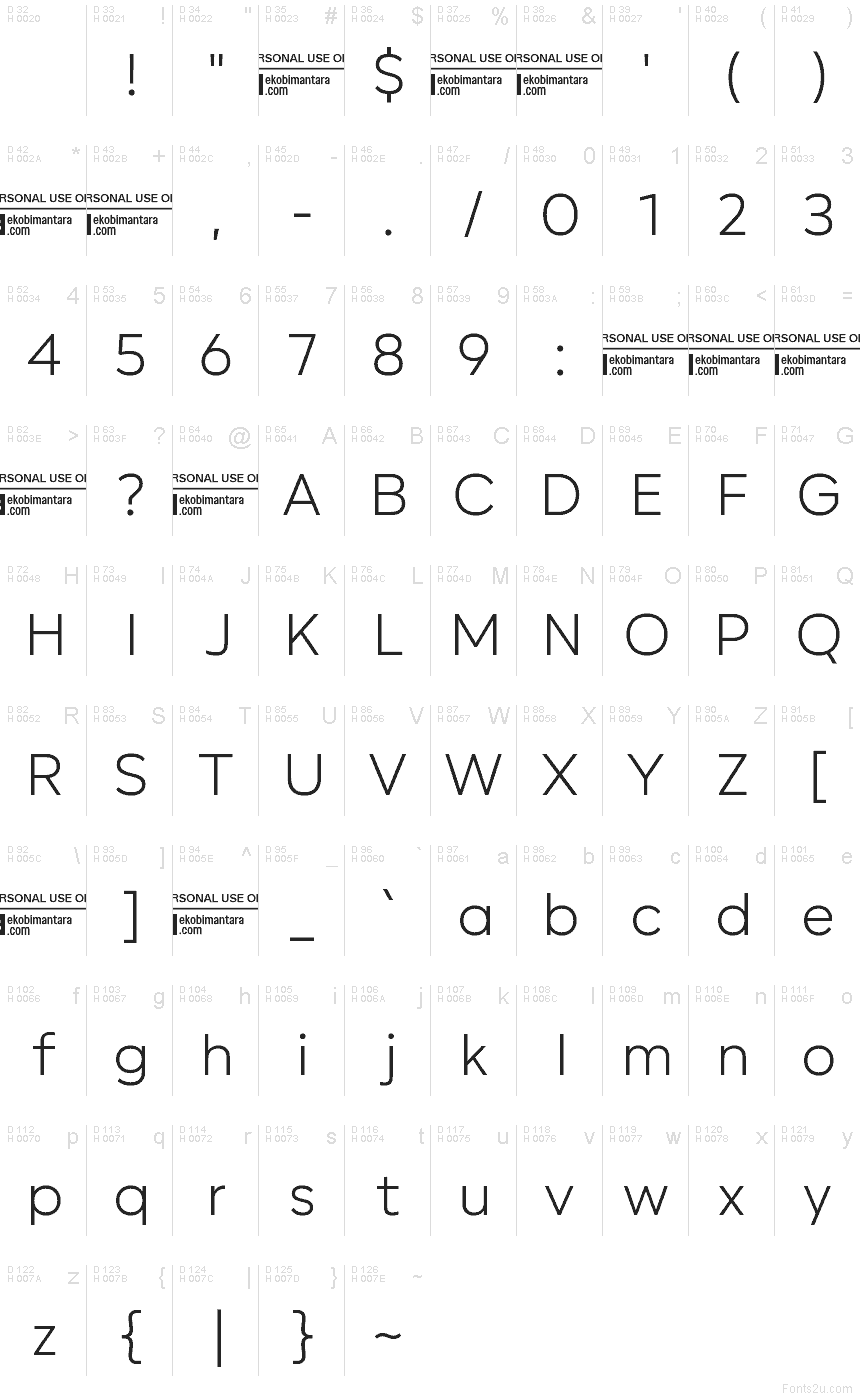
Geova Trial Light
Geova Light font by Eko Bimantara is a free geometric sans serif font that solves a familiar challenge: staying airy without feeling fragile. Its circular bowls, open counters, and crisp, straight strokes create a calm rhythm that reads cleanly at small sizes and glows in generous whitespace. Set in the Geova family, this light cut carries a soft sheen—friendly curves with just enough edge—so your layouts feel refined, not sterile.
Using Geova Light, headlines and captions breathe on fashion lookbooks, lifestyle branding, minimalist posters, tech landing pages, packaging, and UI labels. This free font holds alignment nicely, keeping long lines tidy and short bursts snappy. For a simple pairing, use Geova Regular for body copy or contrast it with a warm editorial serif.